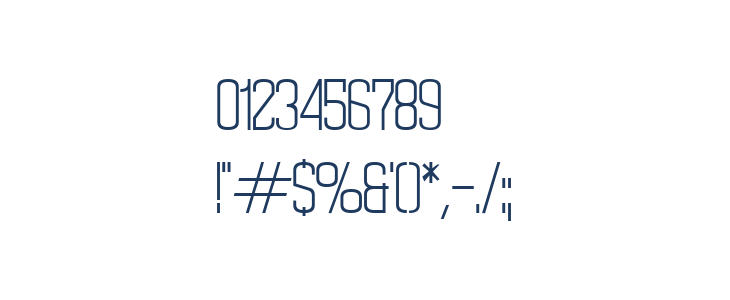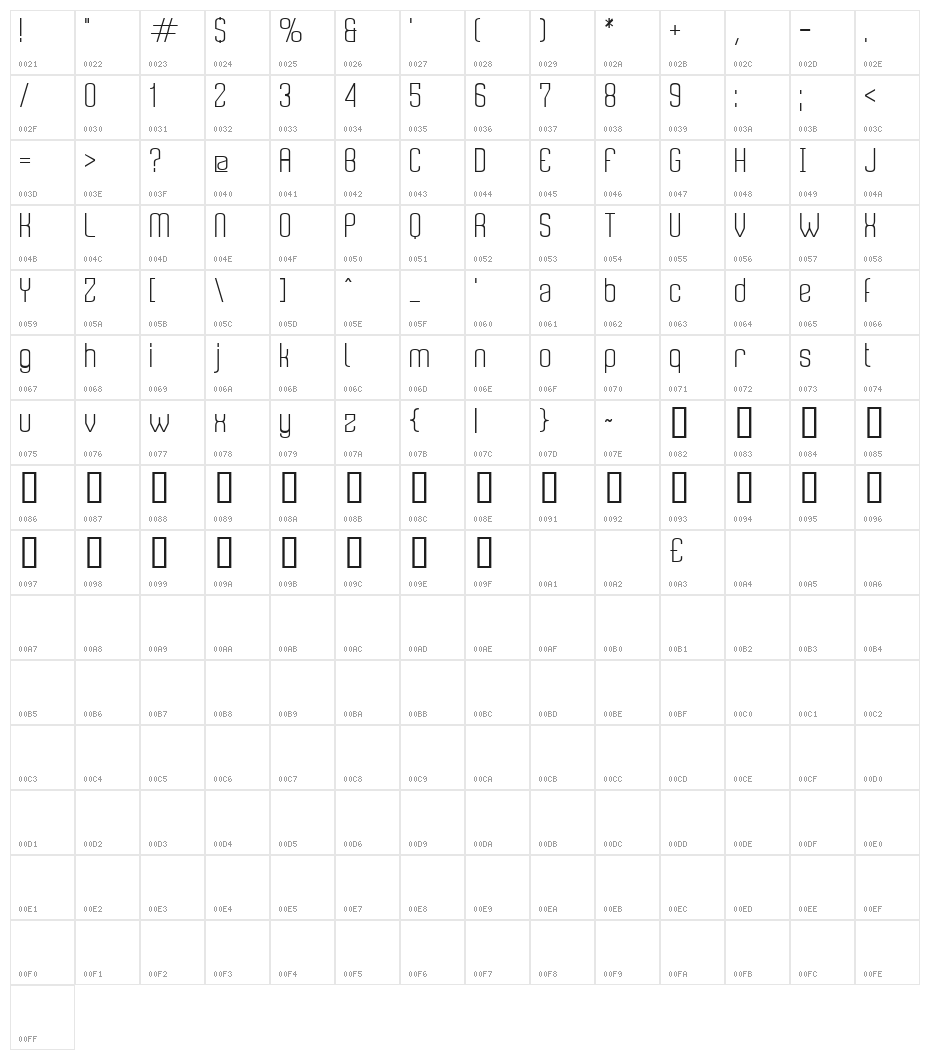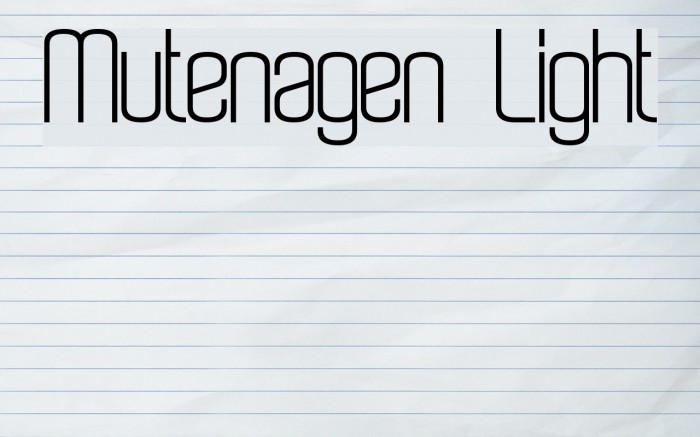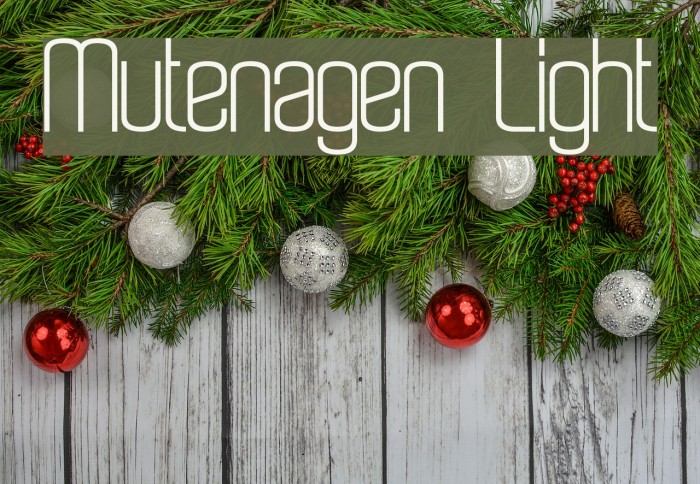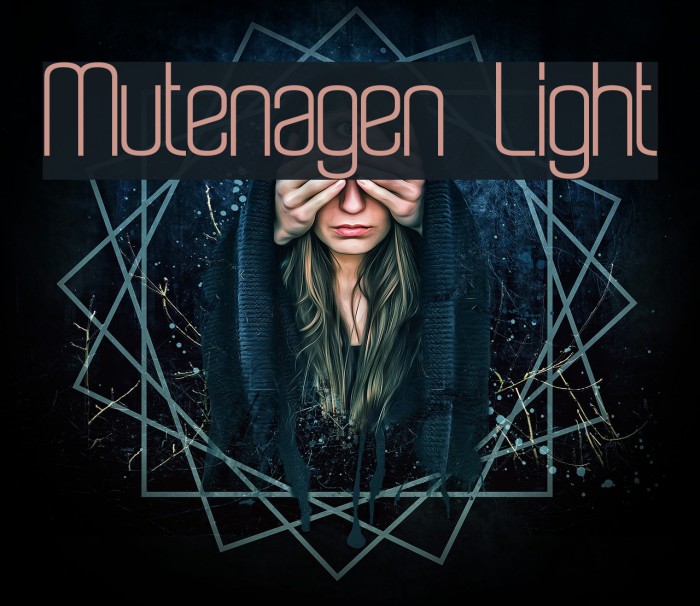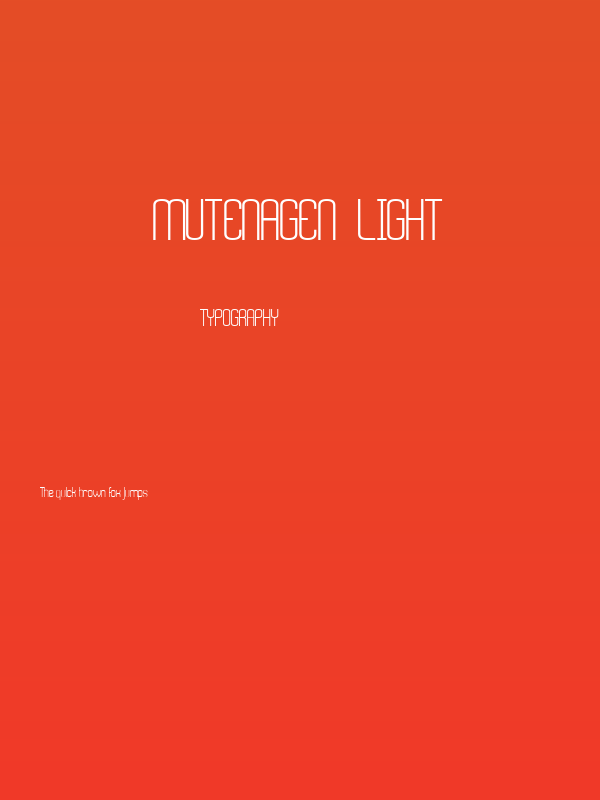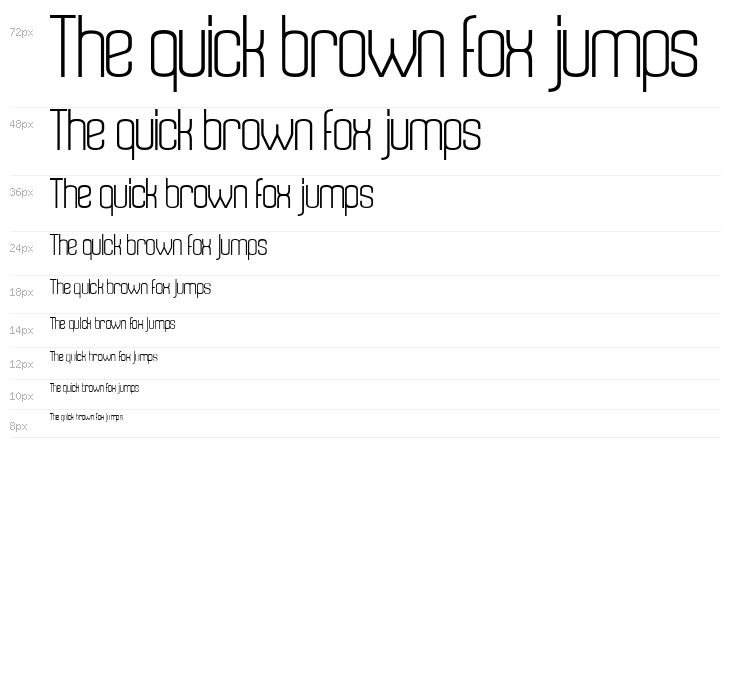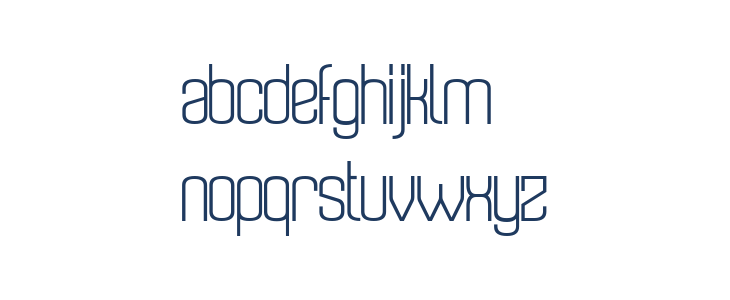
Mutenagen Light Font
Mutenagen Light Description
This font features a modern and sleek design with elongated, narrow characters that give it a futuristic and minimalist appearance. The uppercase and lowercase letters maintain a consistent height, creating a uniform look across the text. The numerals and special characters follow the same design principles, ensuring a cohesive style. The thin strokes and geometric shapes contribute to its light and airy feel, making it suitable for contemporary designs. The font's unique style is both eye-catching and versatile, ideal for projects that require a clean and modern aesthetic.